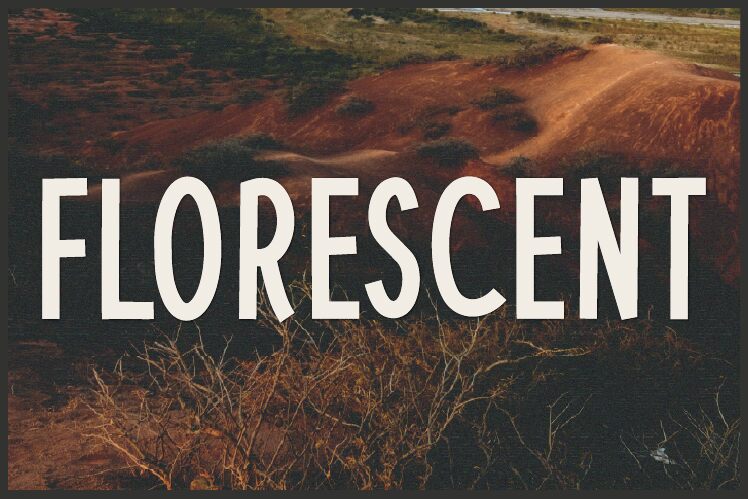
Florescent font family by Hanna Bie is a free vintage-inspired font consisting of 2 charming handwritten-style designs. Embracing an informal yet rustic, handcrafted feel, Florescent brings an organic flow to the reader to create a perception of safety and comfort. The font, along with its imperfect charm, is here to create a casual atmosphere and add that nostalgic touch.